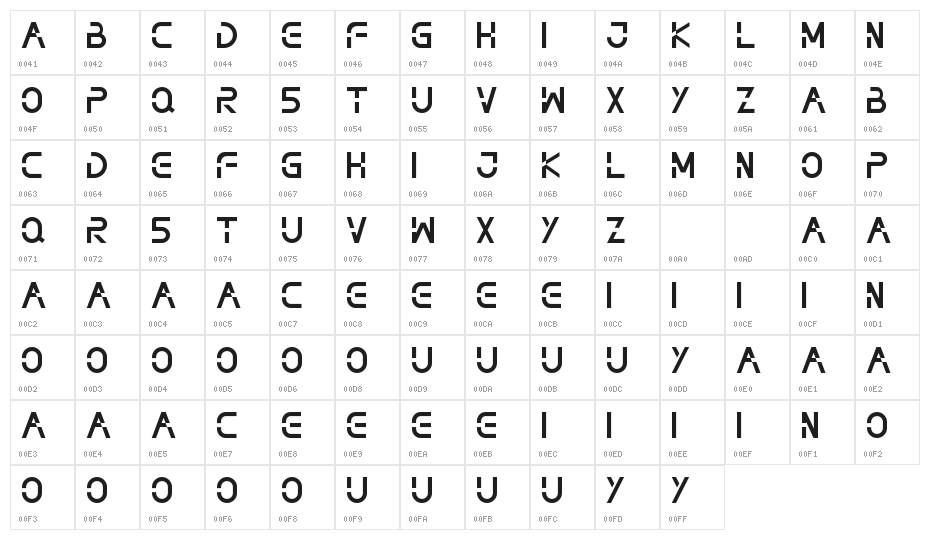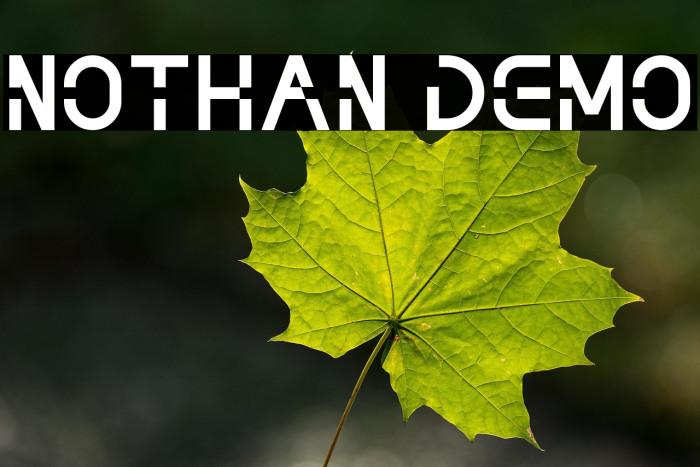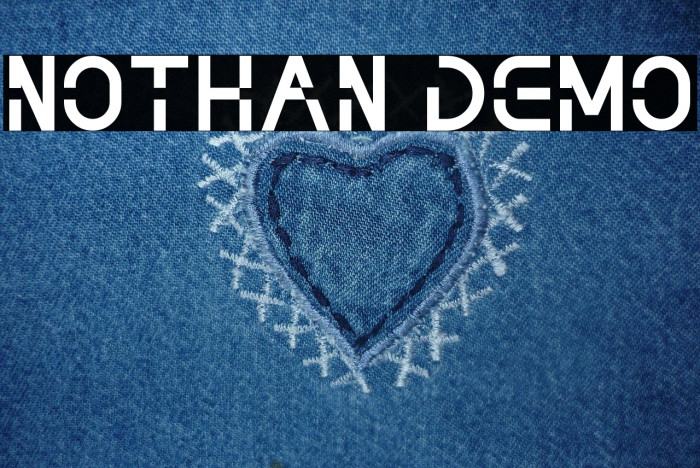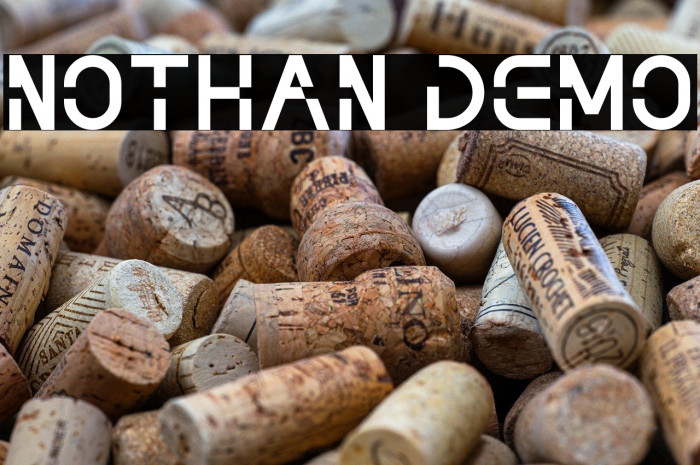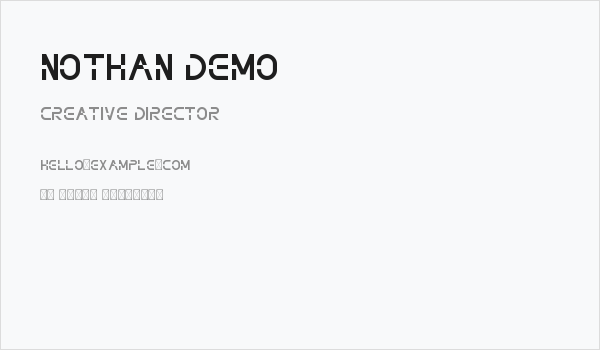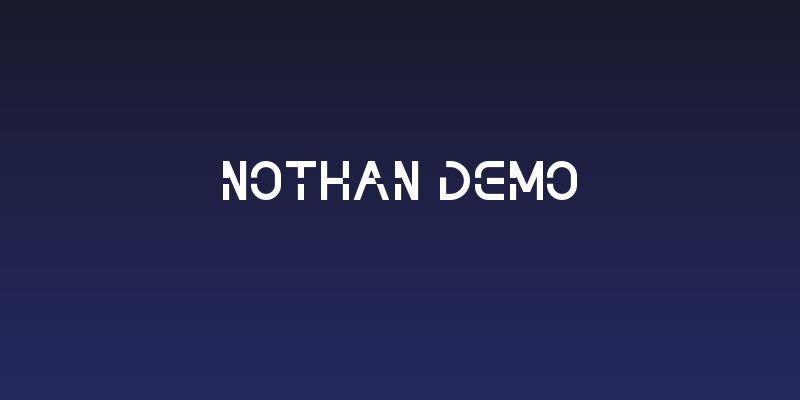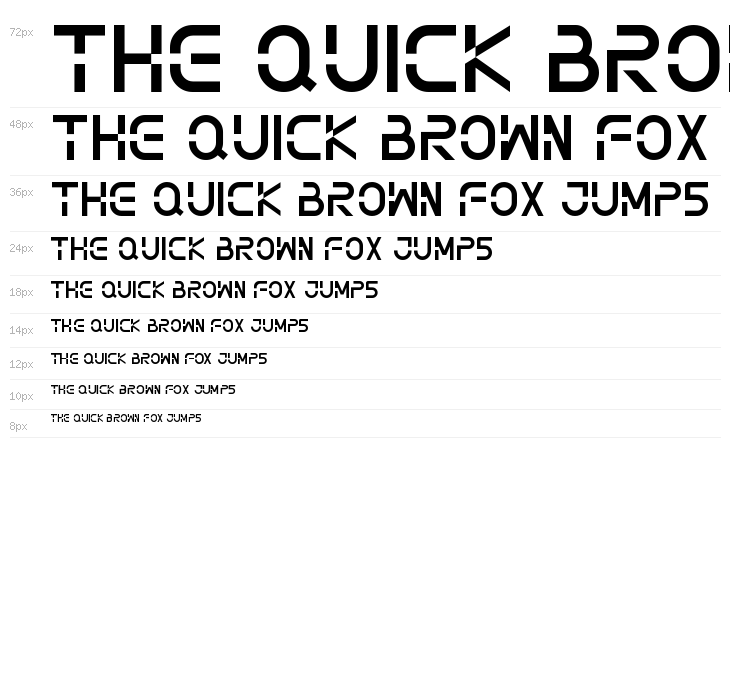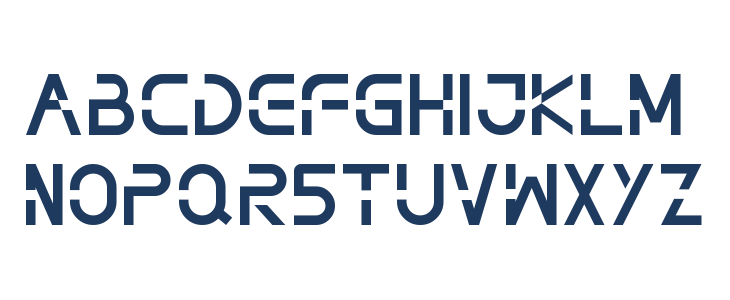
NOTHAN DEMO Font
NOTHAN DEMO Description
This font features a modern, geometric design with bold, angular lines and a futuristic aesthetic. The characters are constructed with a combination of straight edges and sharp angles, giving it a distinctive and edgy appearance. The uppercase letters are uniform in height, while the lowercase letters maintain a consistent style that complements the uppercase. The numbers and special characters are designed to match the overall geometric theme, providing a cohesive look across all glyphs. The font's unique style makes it suitable for projects that require a contemporary and innovative touch.
| Proposed Projects | Ideal for technology branding, sci-fi posters, video game titles, and modern advertising campaigns. |